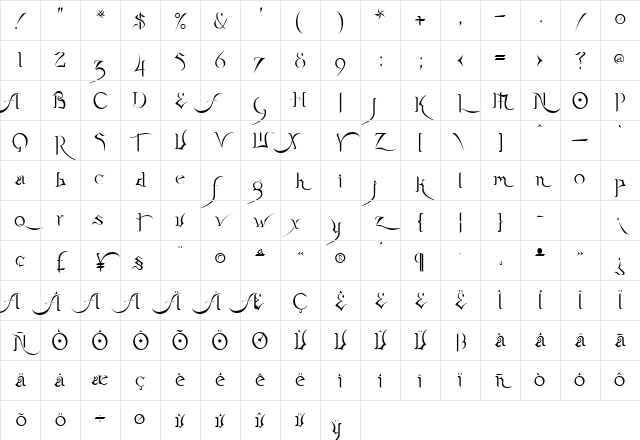
Swashbuckler Script Free Font
Swashbuckler Script
Style: Script
Design Context for Swashbuckler
Swashbuckler flows with the natural rhythm of handwritten lettering, making it ideal for designs that call for warmth and personal expression.
Font Pairing: Combine Swashbuckler with a simple geometric sans for maximum contrast - the tension between flowing curves and clean structure is a classic typographic pairing.
Pro Tip: Use Swashbuckler for short runs of text - names, titles, or taglines. Extended body copy in script faces tires the eye quickly.